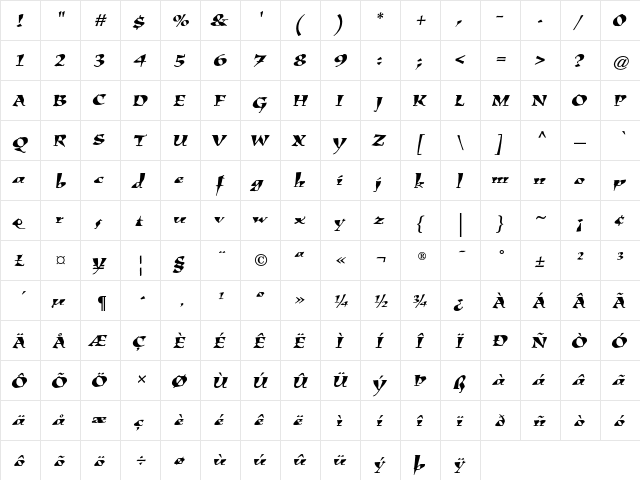
Kigali LxItalic Font Preview
Kigali LxItalic
Design Context for Kigali Typeface
Kigali is a composed and adaptable typeface that performs quietly and consistently across a wide range of design contexts. The dynamic lean of this cut emphasises speed and emphasis in any layout.
Pro Tip: Try Kigali for annotation and caption copy alongside an upright companion — the contrast in angle creates a dynamic but ordered typographic system.